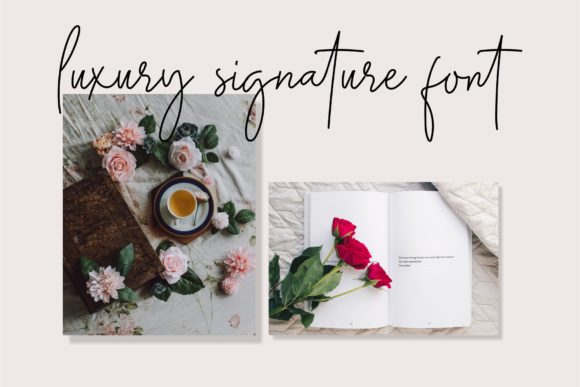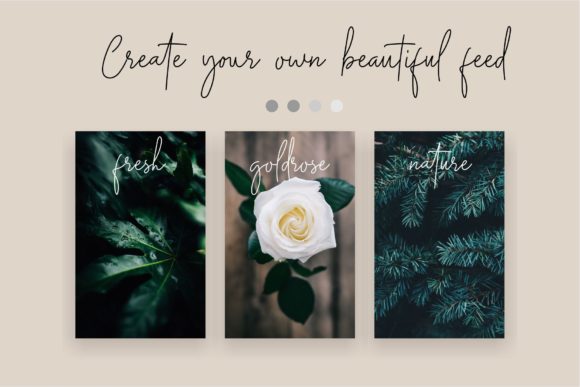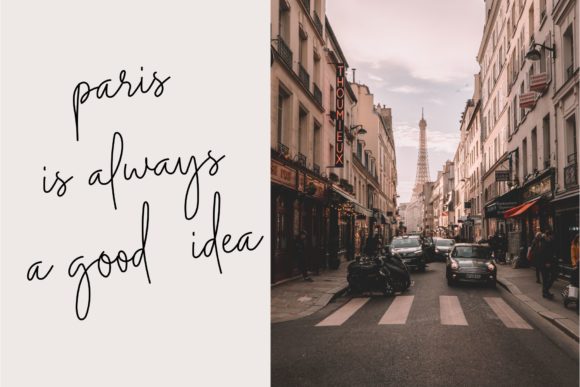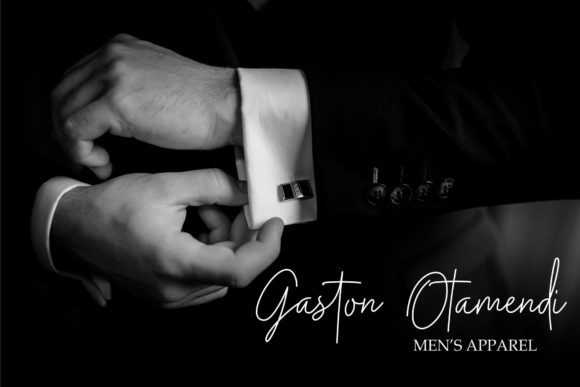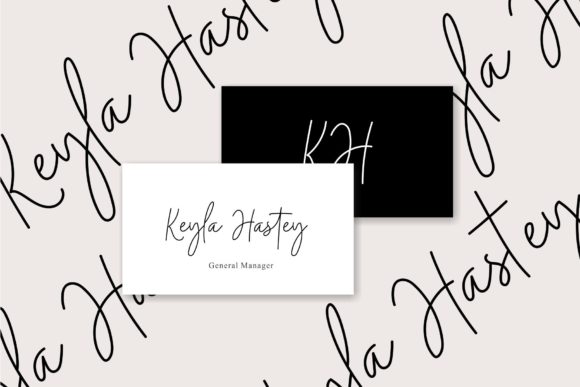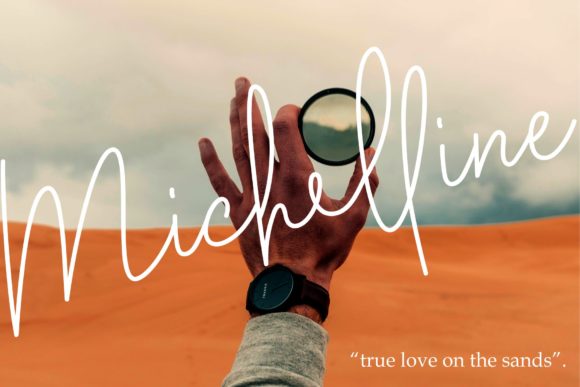
Introduction to Midnight Siganture Font
‘Midnight Signature’ is a handwritten signature script with a natural & stylish flow.
It’s the perfect font for adding an authentic touch to any design project .